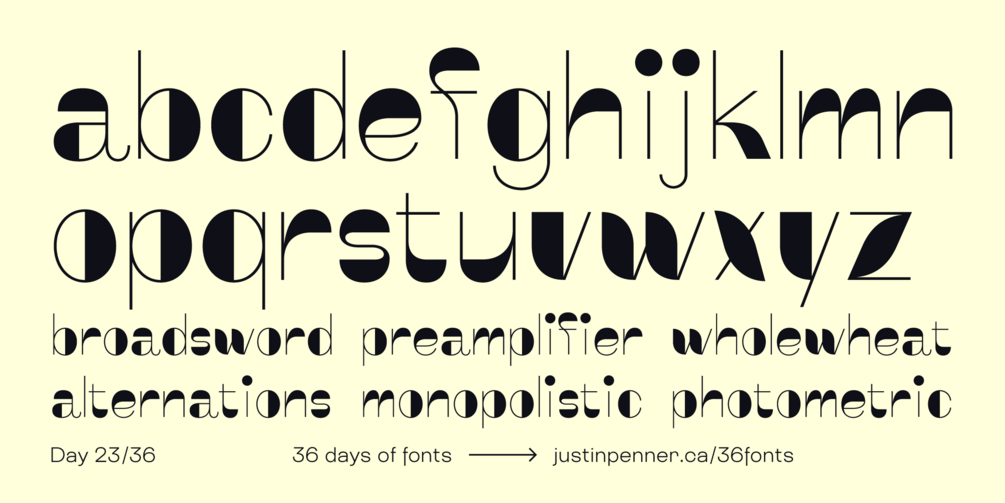
36 Days of Fonts: Day 23
Luna
Often one letter is all you need to inspire a typeface. I began with a half-moon “o” and then stretched the theme into an alphabet.